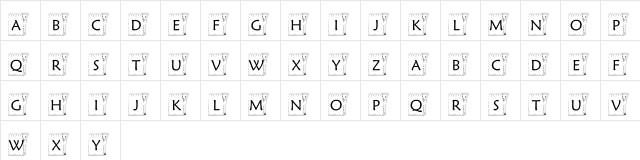
pf_bgoat1 Regular
Design Context for pf_bgoat1
pf_bgoat1 is a composed and adaptable typeface that performs quietly and consistently across a wide range of design contexts.